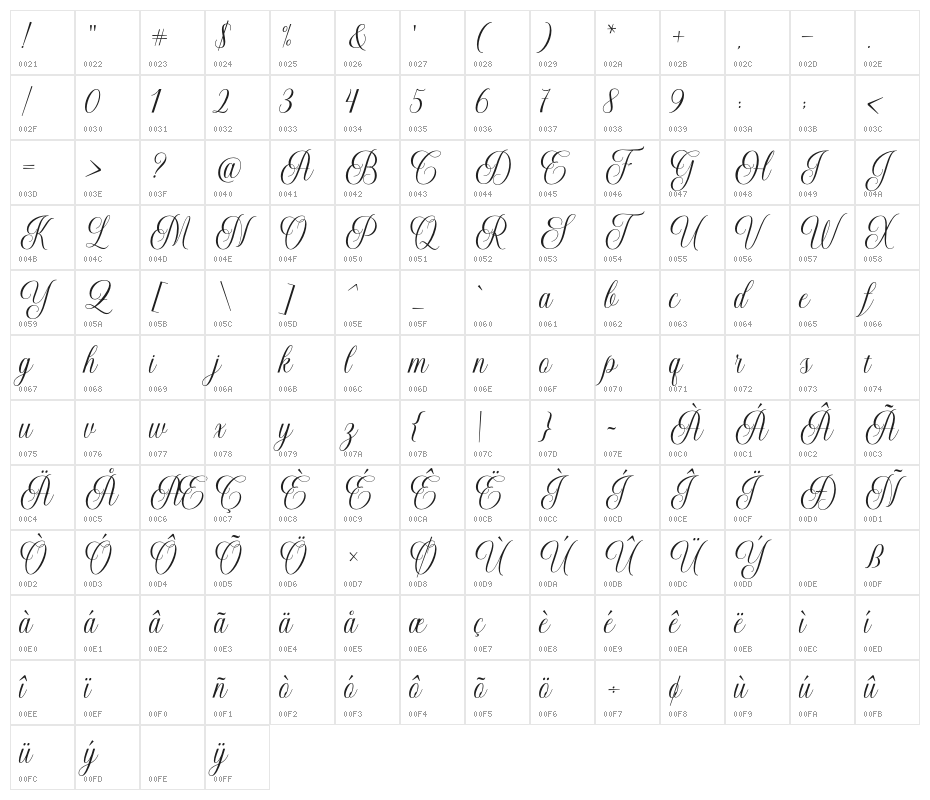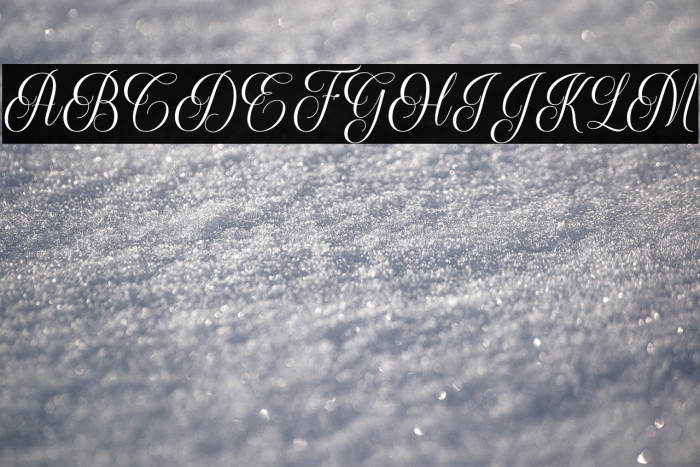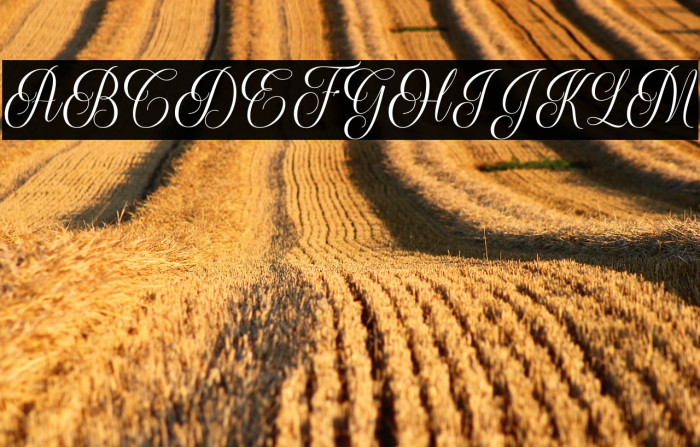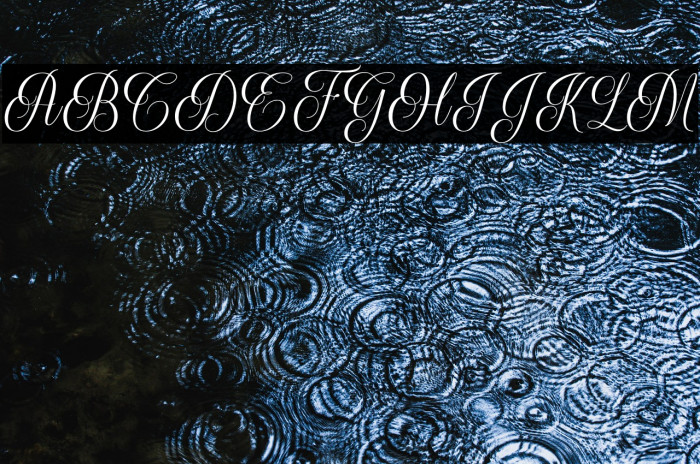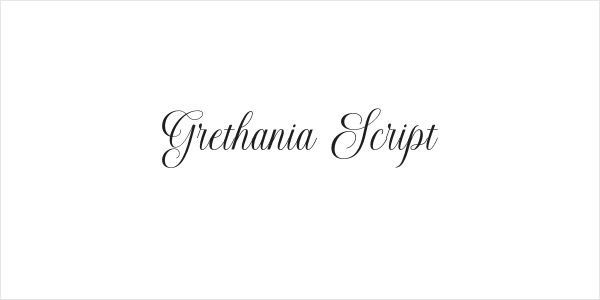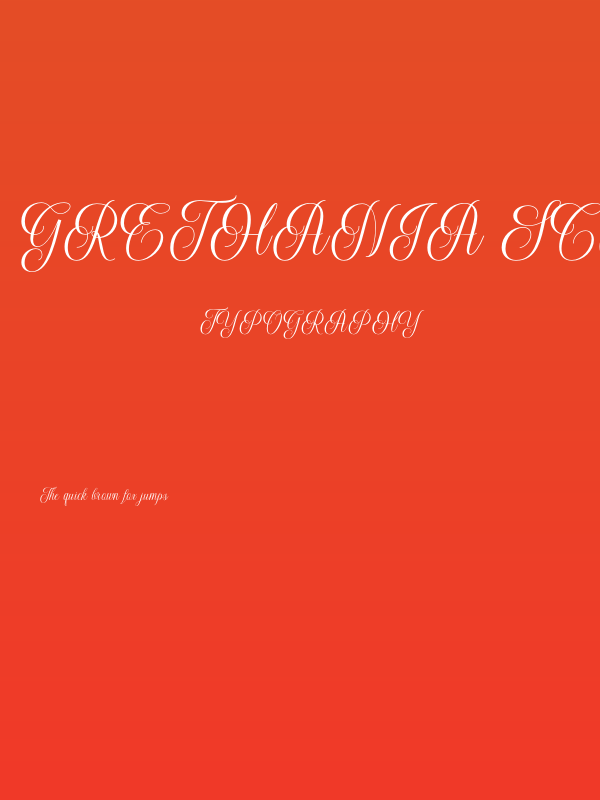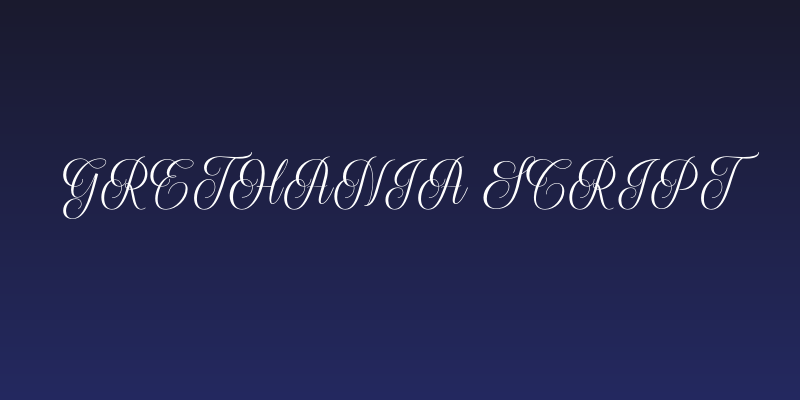
Grethania Script Font
Grethania Script Description
This elegant script font features fluid, cursive strokes with a refined and sophisticated appearance. The uppercase letters are characterized by graceful loops and flourishes, while the lowercase letters maintain a smooth, flowing style. The numerals are designed with a similar elegance, making them suitable for formal and decorative purposes. The special characters complement the overall aesthetic, adding versatility to the font. Its delicate curves and stylish presentation make it ideal for projects that require a touch of class and elegance.